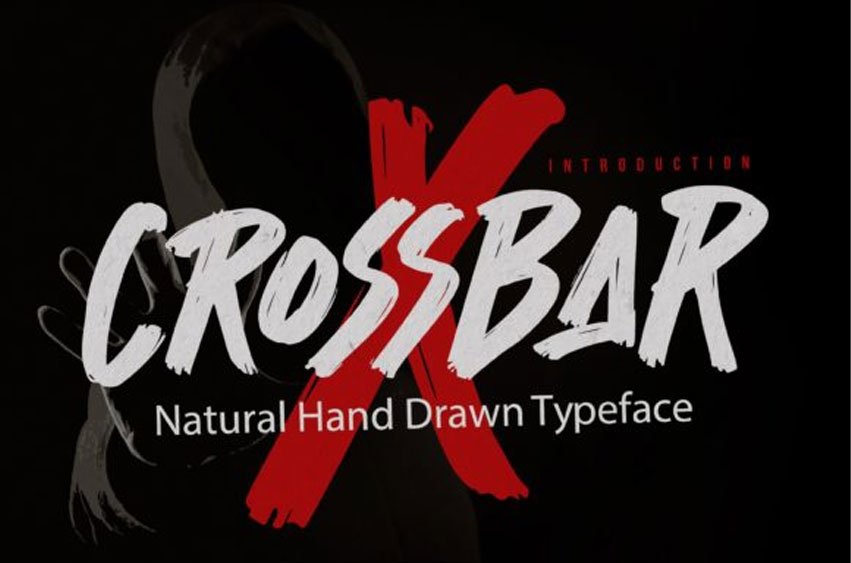
Crossbar Font
Crossbar Font is a brushed display font that has a gloomy, street art vibe.
This font is suitable for designs such as t-shirts, sportswear, logos, advertisements, clothing, and more.